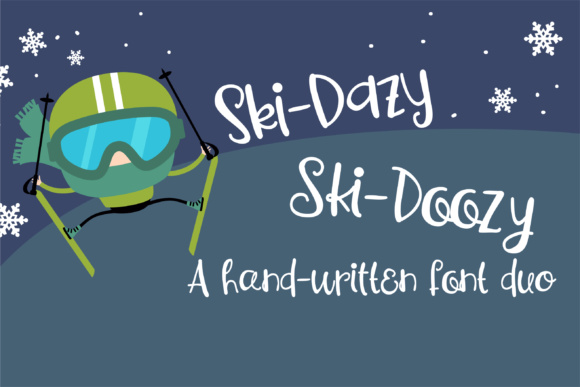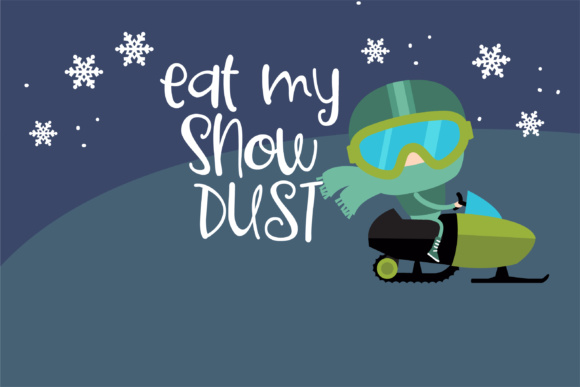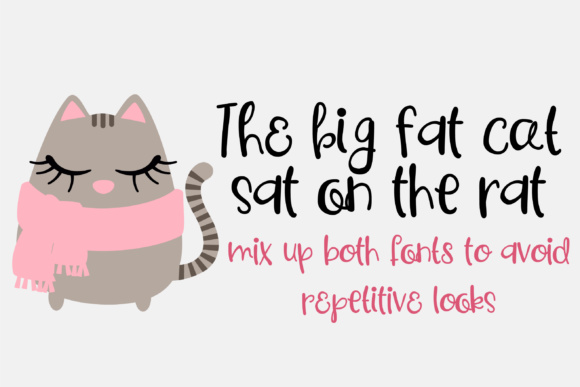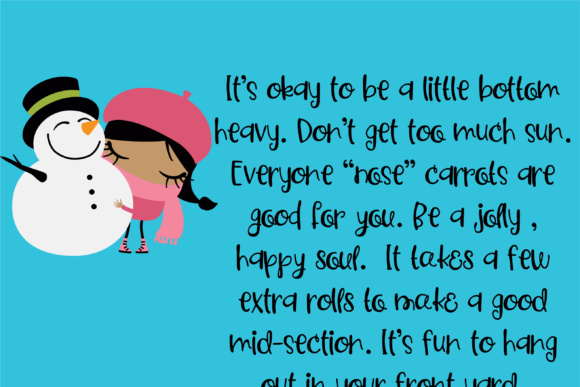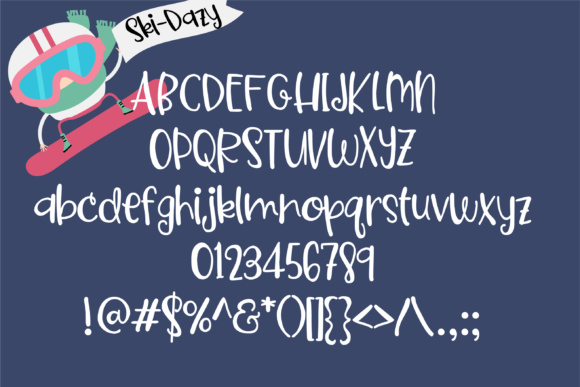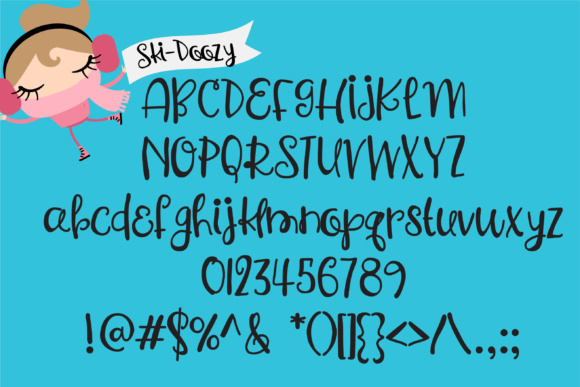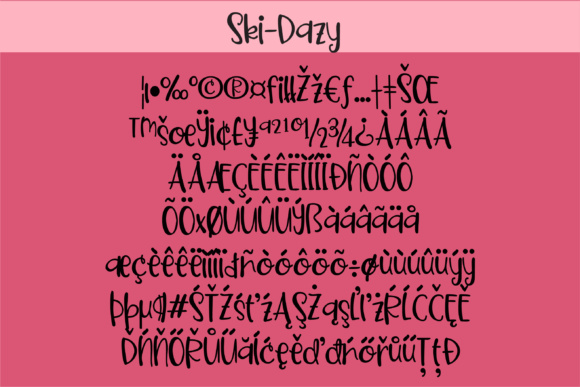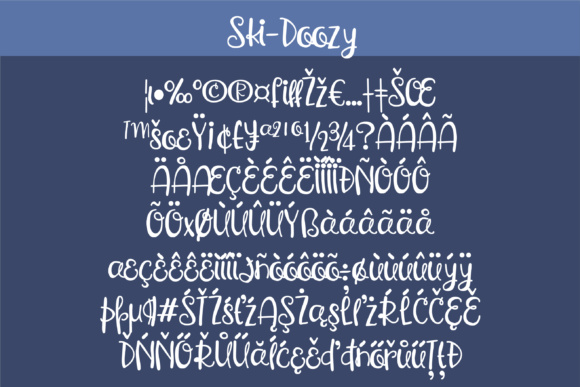
PN Ski-Doozy and Ski-Dazy Font Duo Font
About PN Ski-Doozy and Ski-Dazy Font Duo Font
This hand-written font duo are two completely different font but created hand in hand so they are interchangable. Use together to avoid repetitive looks in your cute, creative projects.